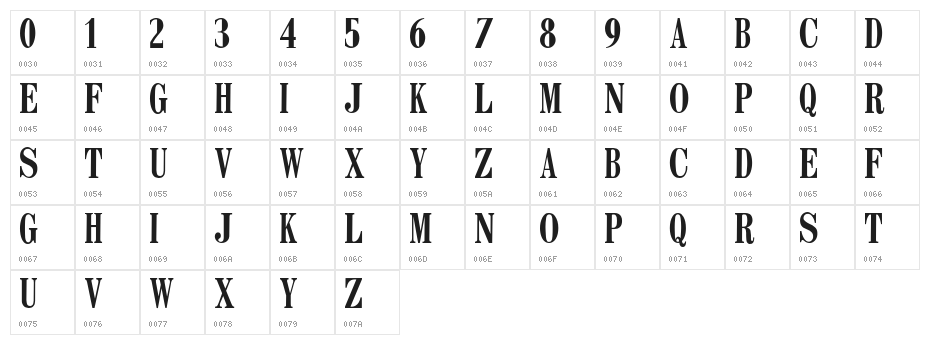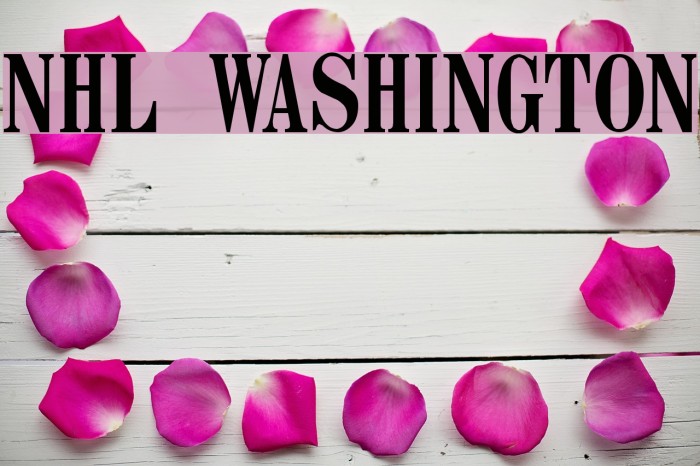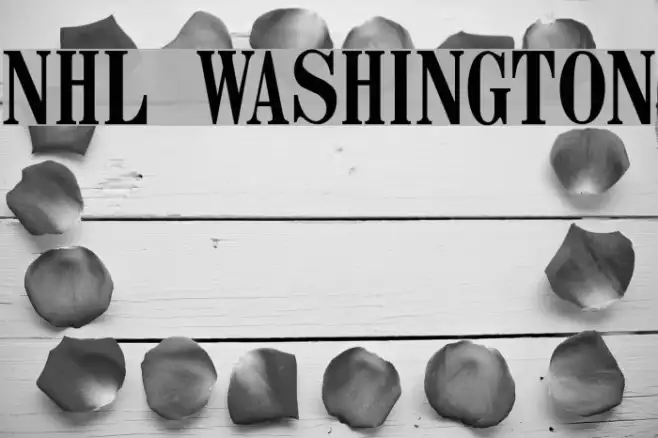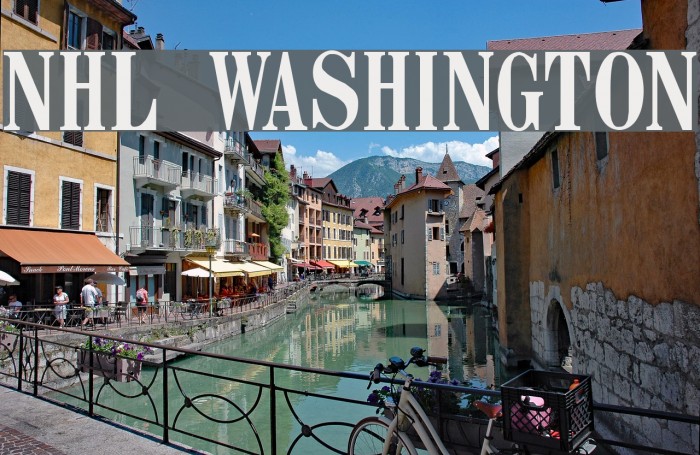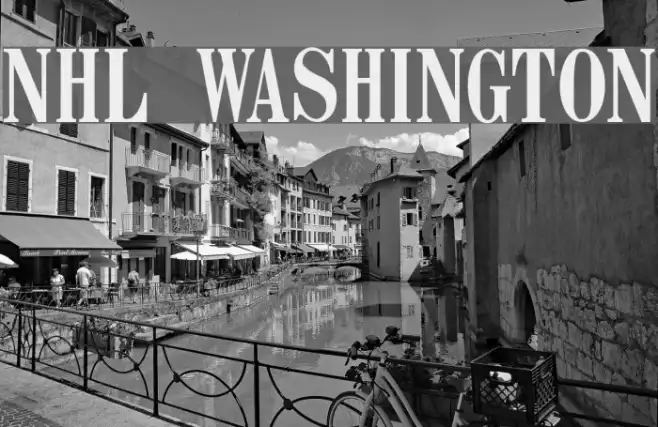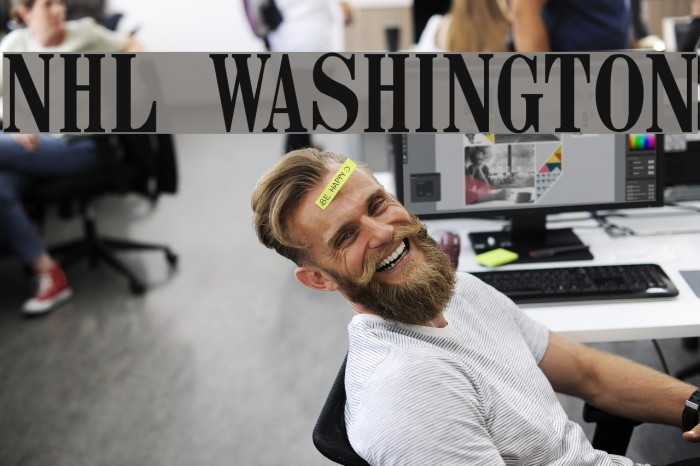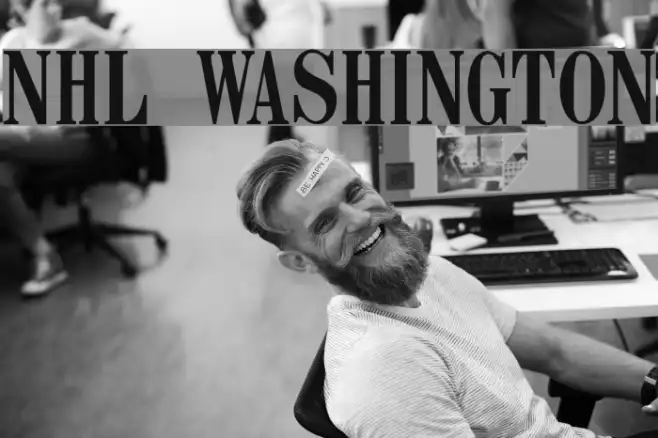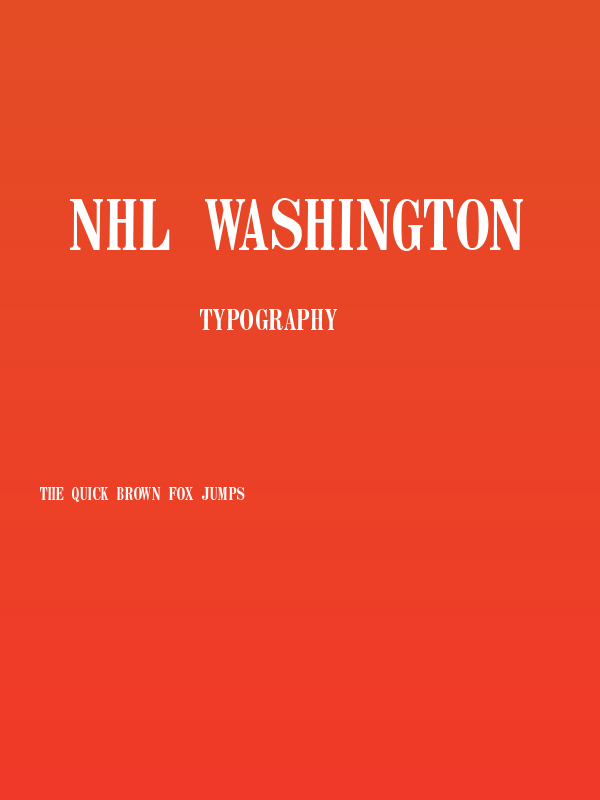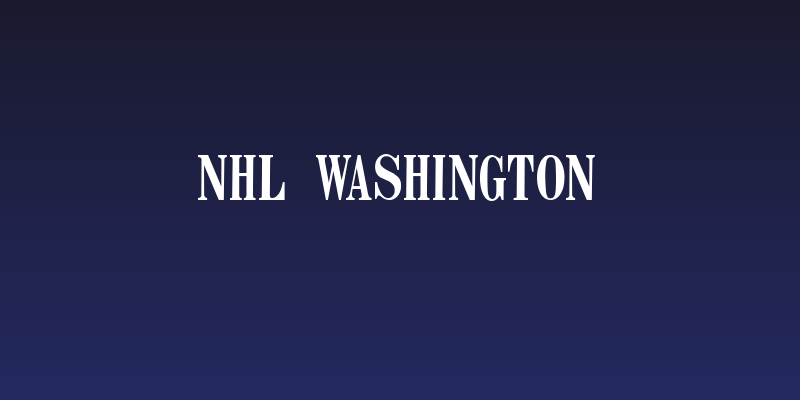
NHL Washington Font
NHL Washington Description
This font features a bold and commanding presence with its thick, high-contrast strokes and sharp serifs. The uppercase letters are particularly striking, with a strong vertical emphasis and slightly condensed proportions that give it a powerful and authoritative look. The numerals are equally bold, maintaining the same high contrast and sharpness as the letters. The overall design is reminiscent of classic serif typefaces, yet it carries a modern twist with its clean lines and precise angles. The font's style is suitable for making a strong visual impact, ideal for headlines and titles that require a sense of strength and reliability.